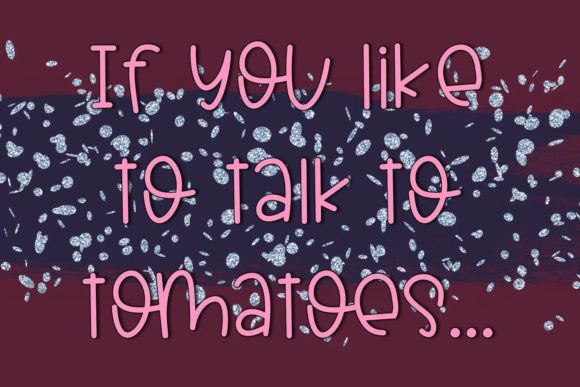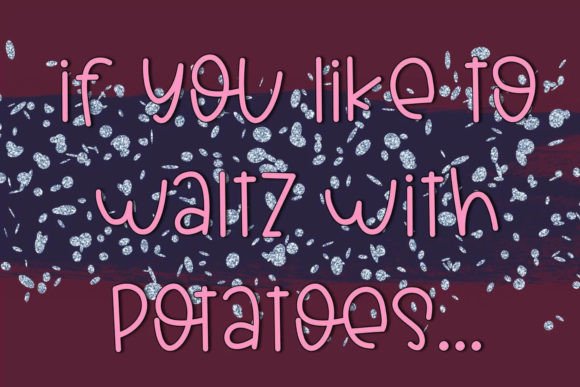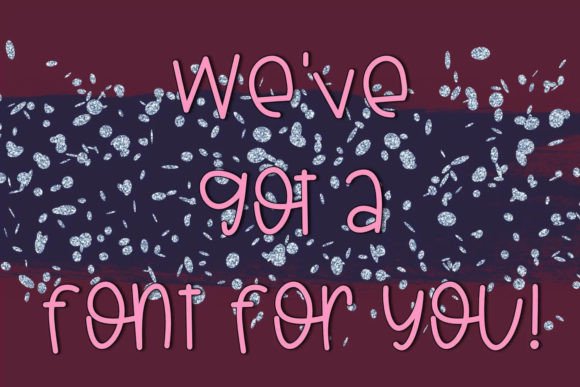
Introduction to Potato Tomato Font
Introducing Potato Tomato, a fun, and whimsical handwritten font.
Potato Tomato is a quirky font with some flair Use Potato Tomato, on a variety of projects, including your cut machine.
Potato Tomato Font offers exceptional quality and versatility, making it a valuable addition to your design toolkit. Whether you’re creating for personal projects or commercial use, Potato Tomato Font delivers professional results.